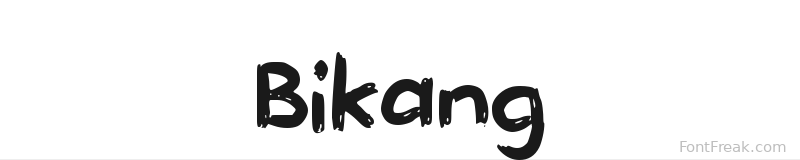
Bikang
Bikang is a unique display font crafted by Wahyu Eka Prasetya, characterized by its playful and artistic style. This font falls into the category of decorative fonts, making it an excellent choice for projects that require a touch of creativity and personality. The visual characteristics of Bikang are distinguished by its bold stroke weight and a slightly uneven baseline, which adds an organic feel to the text. The contrast between thick and thin strokes gives it an engaging dynamic, while the playful spacing between letters enhances its whimsical appearance.
Ideal for a variety of applications, the Bikang font is perfect for wedding invitations, where its charming aesthetics can evoke warmth and intimacy. It can also be effectively used in restaurant menus to create an inviting atmosphere that draws attention to the culinary offerings. Additionally, Bikang works wonderfully for movie posters, providing a fresh and eye-catching title presentation. Content creators looking to add flair to their social media graphics will find this font particularly appealing, as it stands out in a crowded digital space.
What sets Bikang apart is its ability to blend fun with functionality, making any text visually striking while maintaining readability. Its artistic flair ensures that it captures the essence of any message, making it an essential addition to your typography toolkit.